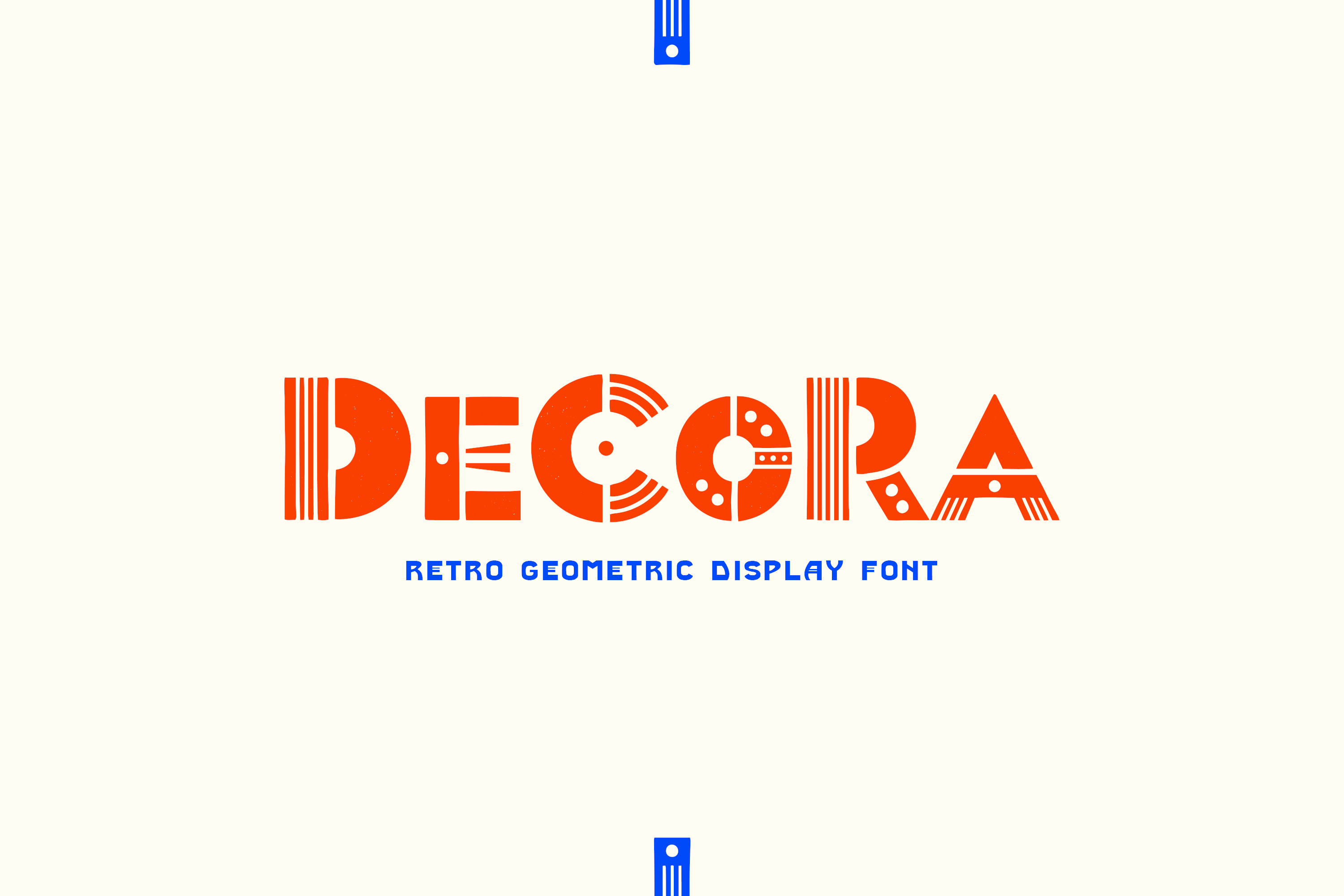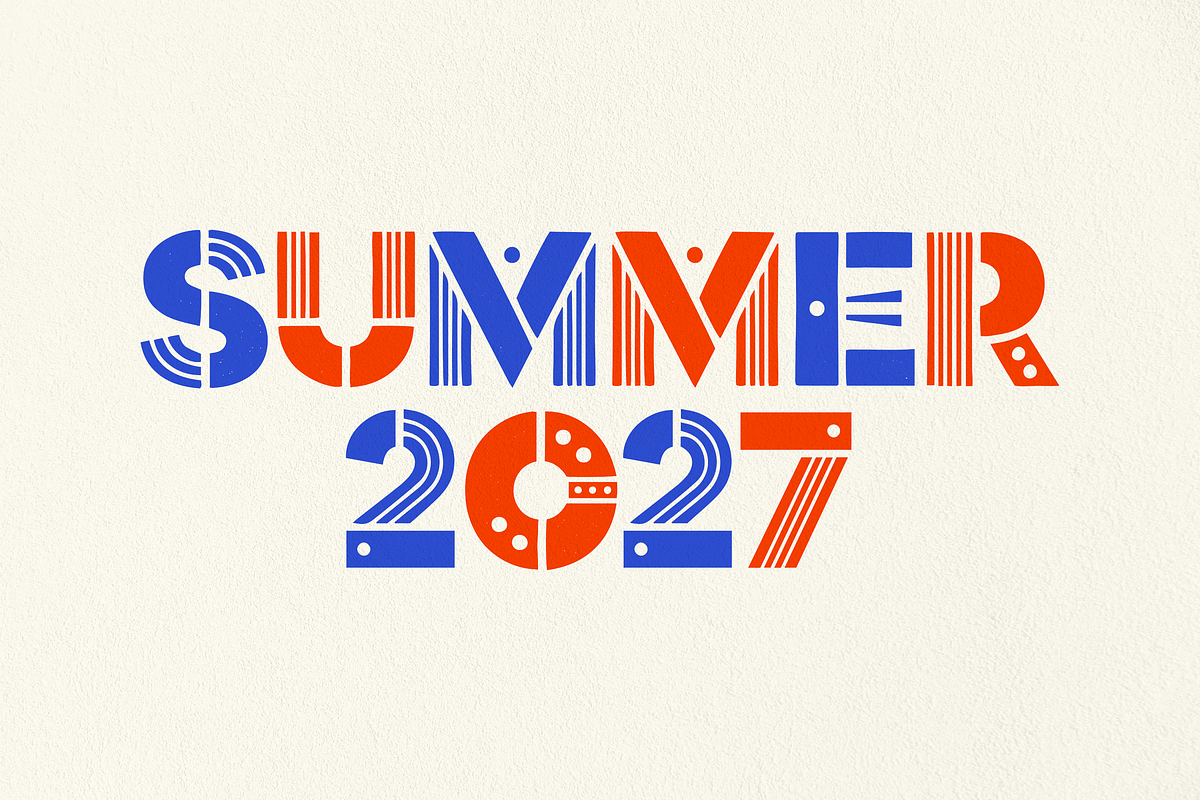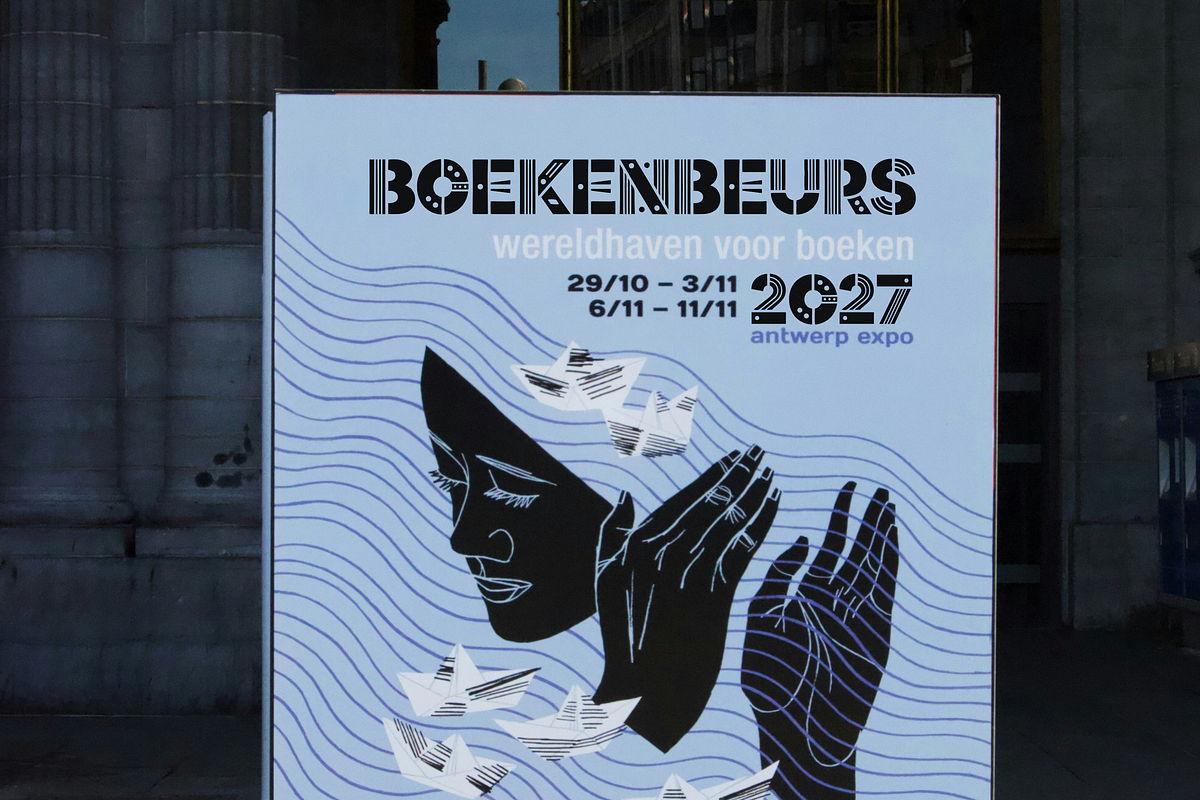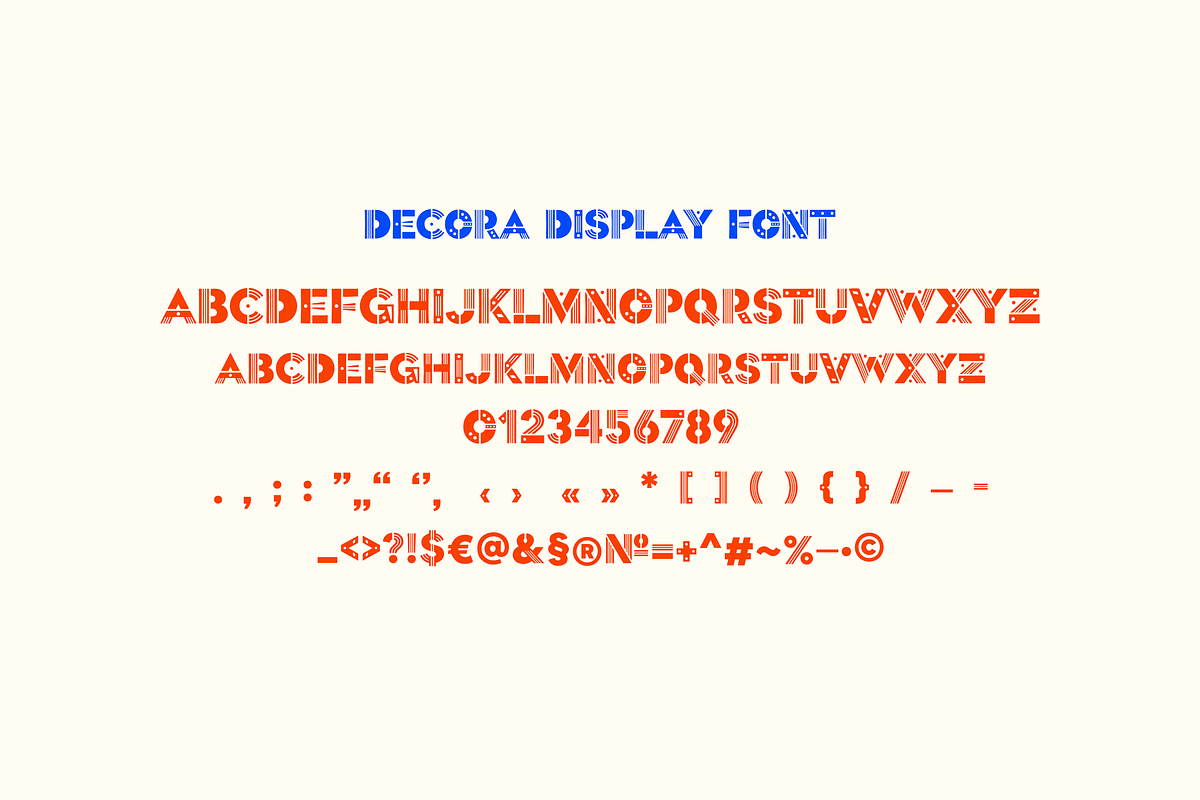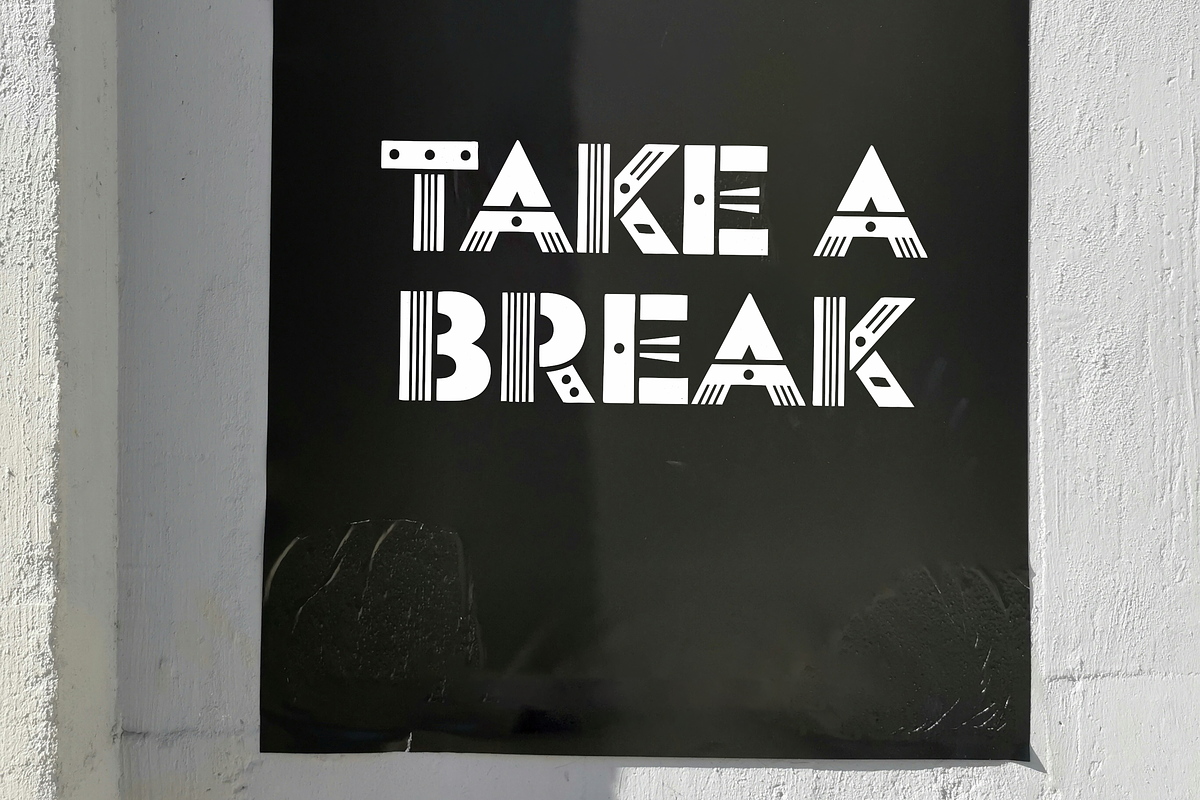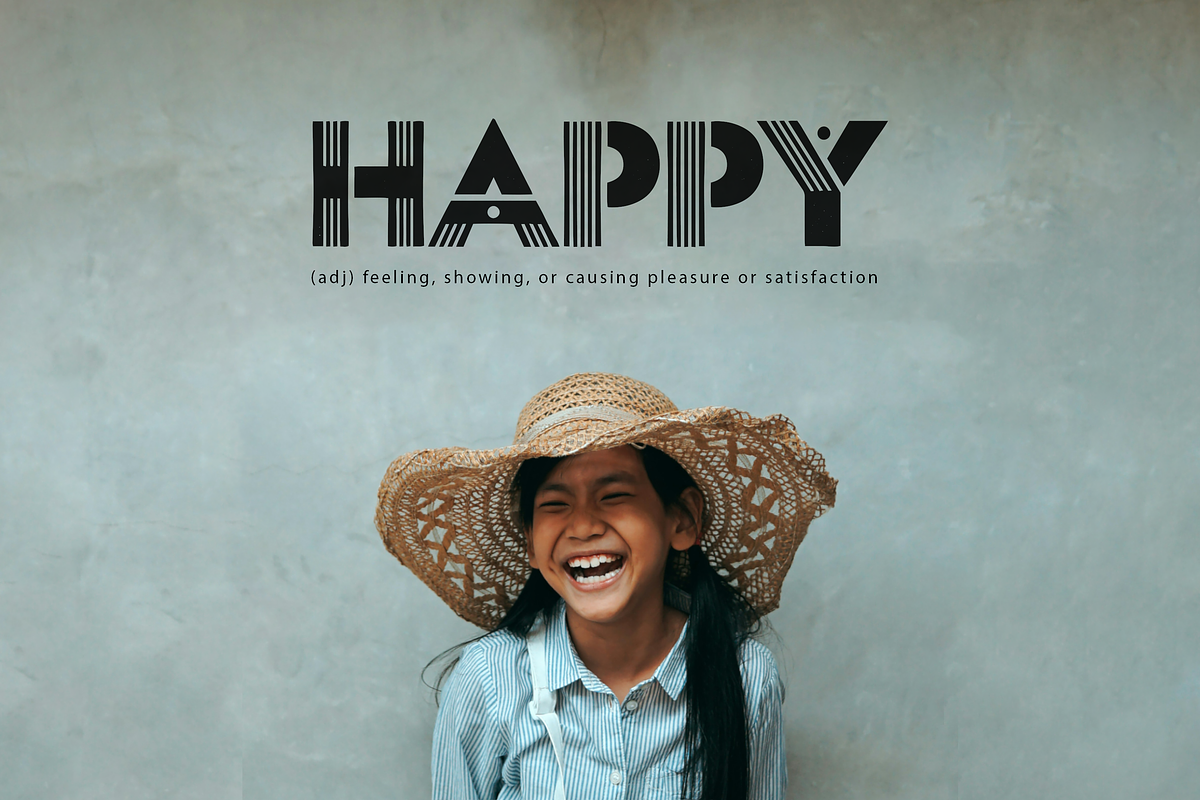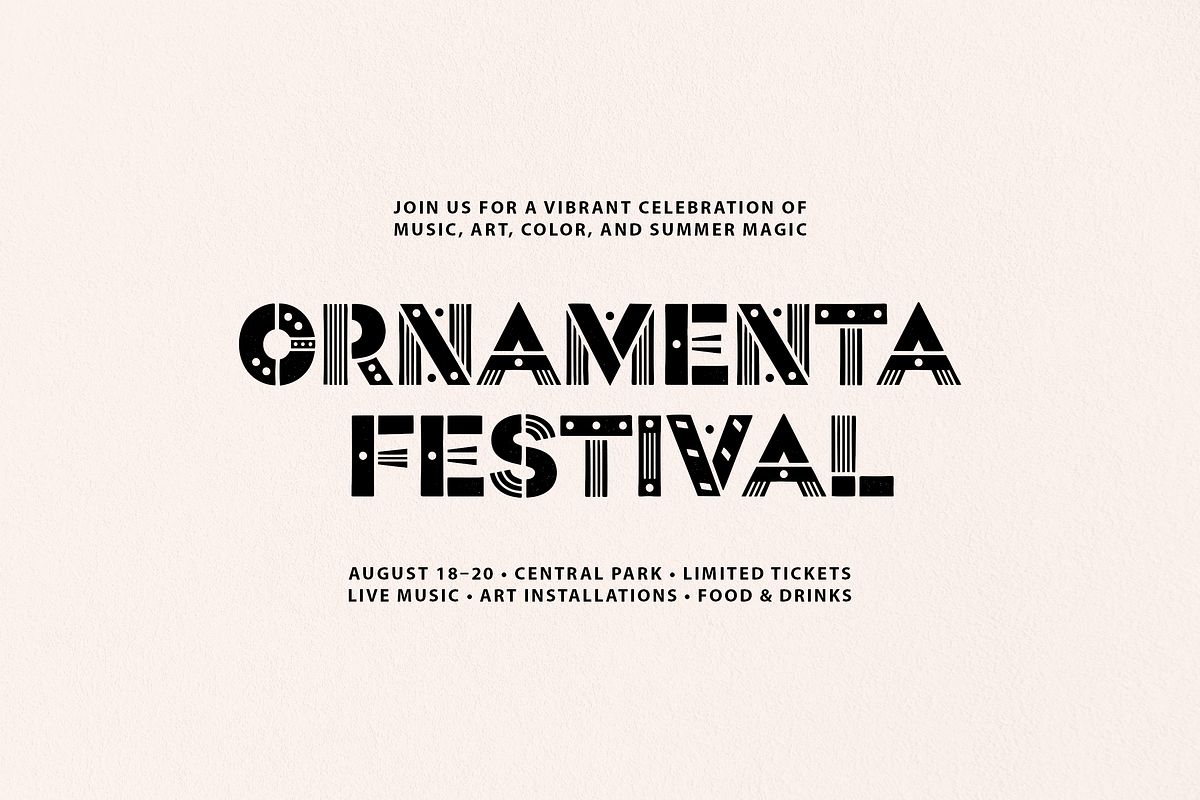
Decora Display Font
Decora is a bold geometric display font with an art deco spirit and a distinctive decorative rhythm. Designed for standout branding, logos, posters, packaging, headlines, social media graphics, and creative editorial layouts.
FEATURES • Bold decorative display style • Geometric modular letterforms • Art deco inspired aesthetic • Great for branding, posters, packaging, logo design, headlines, invitations, and social media graphics • Clean, high-impact letterforms with a unique vintage-modern feel